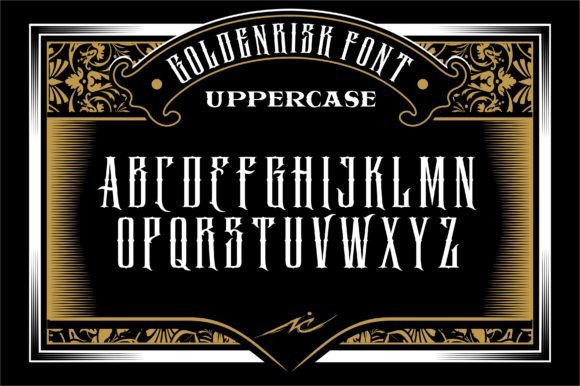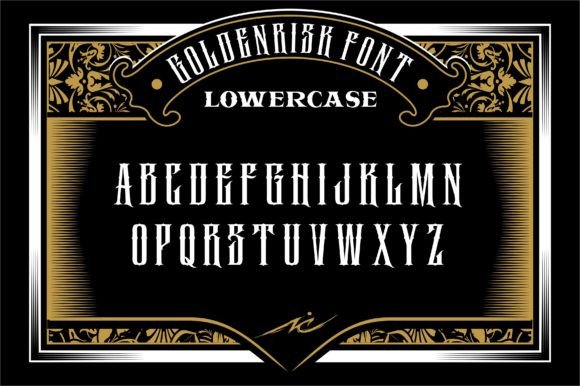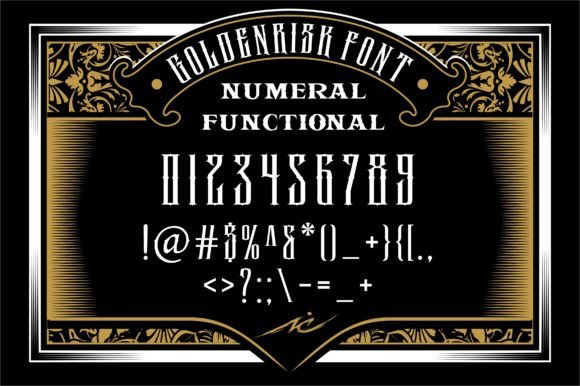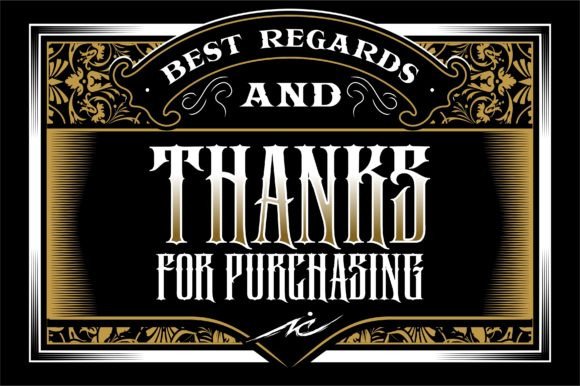
Introducing Goldenrisk Font: A Modern Gothic Blackletter Font
Are you a designer or crafter looking for a unique and creative font to elevate your work? Look no further than Goldenrisk Font, a stunning blackletter font with a modern gothic style. This versatile font is perfect for exploring your creativity in various fields, including logos, bands, posters, and more.
What is Goldenrisk Font?
Goldenrisk Font is a carefully crafted blackletter font that combines traditional gothic elements with a modern twist. Its sleek and edgy design makes it an excellent choice for designers and crafters who want to add a touch of sophistication and elegance to their work. The font’s modern gothic style gives it a fresh and contemporary look that’s sure to grab attention.
Key Features of Goldenrisk Font
- Unique and distinctive design: Goldenrisk Font boasts a one-of-a-kind design that’s sure to make your work stand out from the crowd.
- Modern gothic style: The font’s modern gothic style gives it a fresh and contemporary look that’s perfect for designers and crafters who want to create something new and exciting.
- Highly versatile: Goldenrisk Font can be used in a variety of applications, including logos, bands, posters, and more.
- Easily readable: Despite its ornate design, Goldenrisk Font is surprisingly easy to read, making it perfect for use in both digital and print materials.
Uses of Goldenrisk Font
Goldenrisk Font is an incredibly versatile font that can be used in a wide range of applications, including:
- Logo design: Create a stunning logo for your business or brand with Goldenrisk Font.
- Poster design: Use Goldenrisk Font to create eye-catching posters for events, concerts, or exhibitions.
- Band and music-related designs: Goldenrisk Font is perfect for creating album covers, band logos, or music-related designs.
- Digital and print materials: Use Goldenrisk Font in your digital and print materials, such as brochures, flyers, or business cards.
Why Choose Goldenrisk Font?
So, why should you choose Goldenrisk Font for your next project? Here are just a few reasons:
- Stand out from the crowd: Goldenrisk Font is a unique and distinctive font that’s sure to make your work stand out from the crowd.
- Add a touch of sophistication: The font’s modern gothic style gives it a sleek and sophisticated look that’s perfect for designers and crafters who want to add a touch of elegance to their work.
- Easily customizable: Goldenrisk Font is highly customizable, making it easy to adjust to fit your specific needs.
Tips for Using Goldenrisk Font
Here are a few tips for using Goldenrisk Font in your next project:
- Experiment with different colors: Goldenrisk Font looks great in a variety of colors, so don’t be afraid to experiment and find the perfect color scheme for your project.
- Pair with other fonts: Goldenrisk Font pairs well with other fonts, so try combining it with a sans-serif font for a unique and interesting look.
- Use it sparingly: While Goldenrisk Font is a beautiful font, it can be overwhelming if used too much. Use it sparingly to create a striking effect.
In conclusion, Goldenrisk Font is a stunning blackletter font with a modern gothic style that’s perfect for designers and crafters who want to add a touch of sophistication and elegance to their work. Its unique and distinctive design, highly versatile, and easily readable make it an excellent choice for a wide range of applications. Whether you’re creating a logo, poster, or music-related design, Goldenrisk Font is sure to make your work stand out from the crowd.